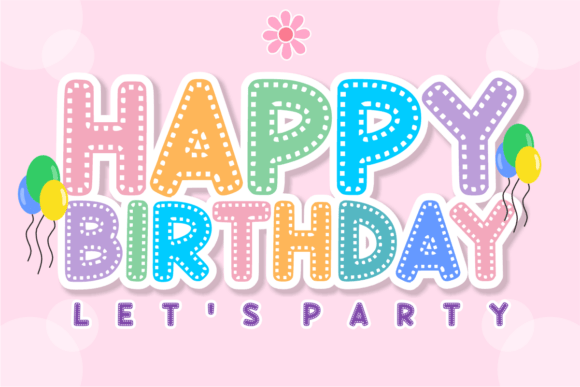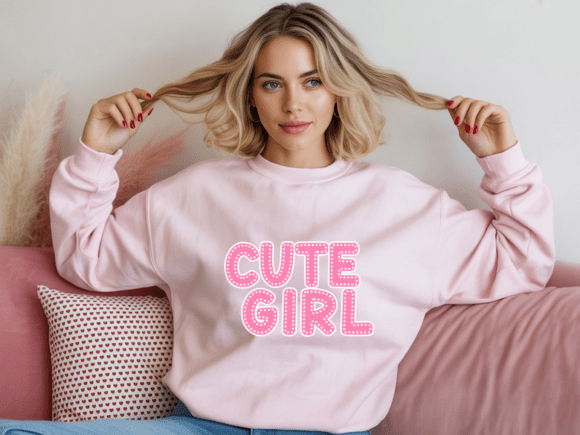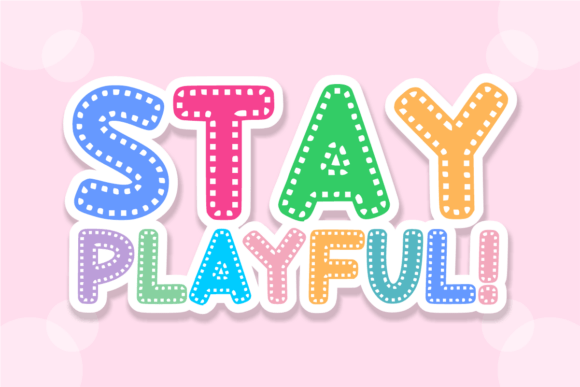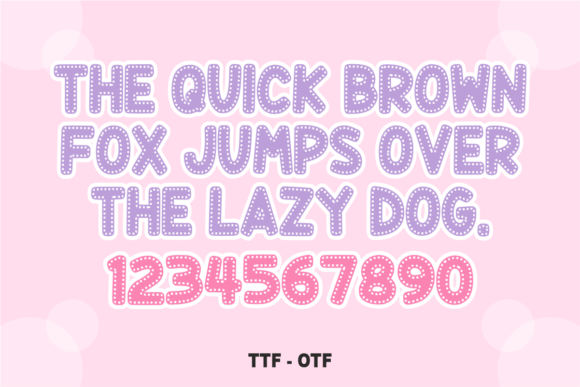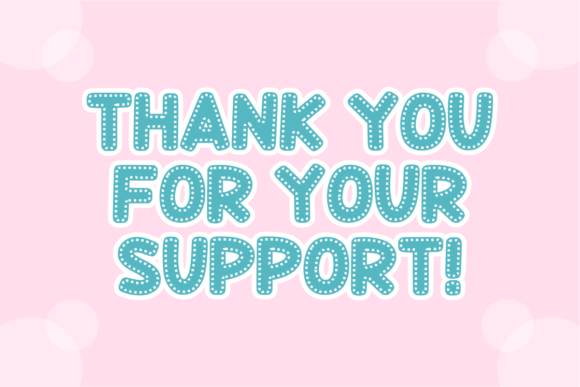
✨ Cute Stickers – The Ultimate Playful Font for Creative Projects ✂️
Have you ever been in the middle of a design project, and suddenly, you just can’t seem to find the right font? I remember a recent project where I was tasked with creating custom stickers for a client’s kids’ birthday party. I wanted a font that was playful, fun, and would really make the stickers pop. That’s when I stumbled upon Cute Stickers, a delightful display font that has since become a staple in my design toolkit.
An Honest Review of Cute Stickers
• ✅ Bold and playful design: Cute Stickers features bold, rounded letterforms with a charming dashed-line detail inside, giving it a handmade, stitched look that’s perfect for kids’ projects.
• ✅ Super legible: The font is incredibly easy to read, making it perfect for use in a variety of projects, from labels and stickers to educational materials and party decor.
• ✅ Versatile: Cute Stickers works perfectly with any cutting machine or design software, making it a great addition to your font library.
• ✅ Fun and creative: The font’s playful design is sure to add a burst of creativity to your projects and make them stand out.
• ⚠️ Limited use in formal projects: While Cute Stickers is perfect for fun, creative projects, it may not be suitable for more formal or professional designs.
• ⚠️ May not work well in small sizes: The font’s bold design and dashed-line details may not be legible in very small sizes.
Perfect for These Projects
Project Type Description
🏷️ Labels & Stickers Planner stickers, name tags, product labels, and more.
🏫 Education Worksheets, flashcards, classroom bulletin boards, and more.
🎂 Party Decor Invitations, banners, cake toppers, and more.
👕 Apparel & Merch Kids’ t-shirts, tote bags, patches, and more.
✂️ DIY Crafting Vinyl cutting, scrapbooking, sublimation, and more.
The Designer Inspiration Behind Cute Stickers
Cute Stickers was designed with the intention of creating a font that’s fun, playful, and perfect for kids’ projects. The designer wanted to create a font that would mimic the look of handmade stickers and stitched crafts, while still being bold and legible.
Font Name Cute Stickers Font
Author TaralArt
Q: What type of projects is Cute Stickers best suited for?
A: Cute Stickers is perfect for fun, creative projects like labels, stickers, educational materials, party decor, and DIY crafting.
Q: Is Cute Stickers easy to read?
A: Yes, Cute Stickers is a bold and legible font that’s easy to read, even in larger sizes.